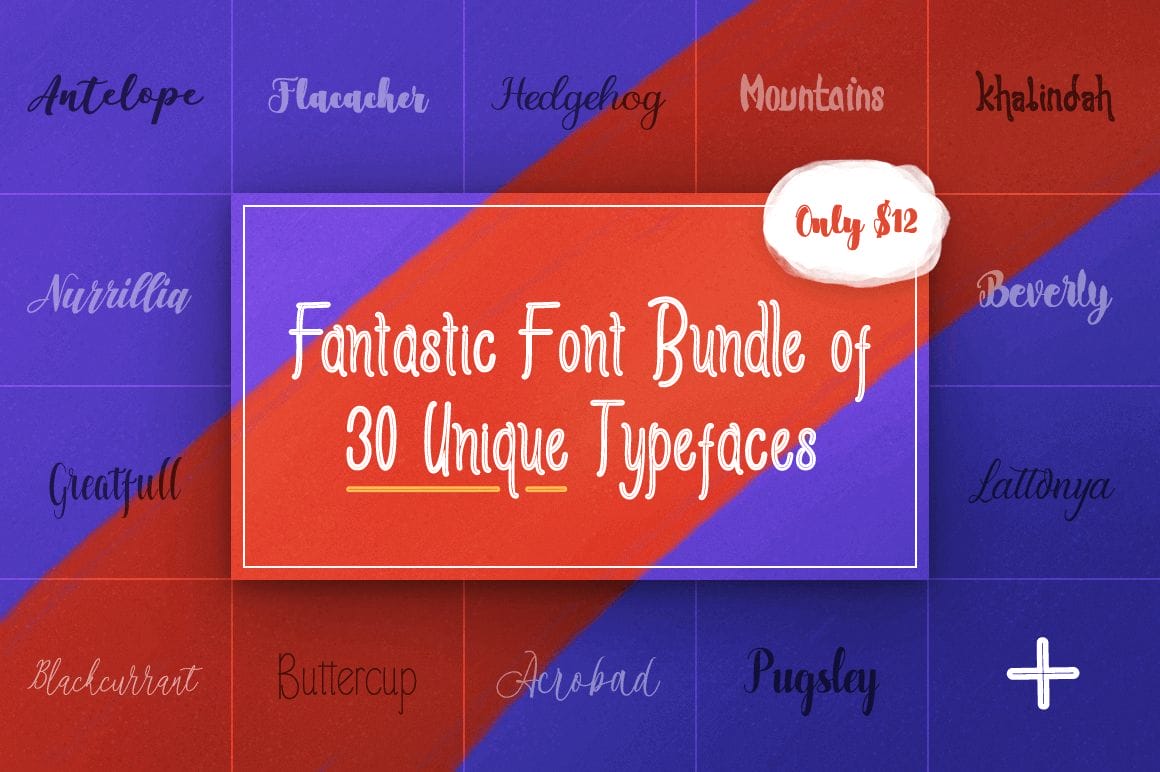
It’s time for another font-astic deal! This one from the mighty Polem, you’ll get yourself a collection of 30 unique hand-drawn, script and serif fonts. Gorgeous, elegant and flowing, these fonts are packed with oodles of OpenType features, and are just the thing you’re looking for in terms of your next project whether it’s greeting cards, invitations or even T-shirts.
- 30 unique professional fonts.
- Beautiful hand-drawn script fonts – from classic to modern.
- Perfect for variety of online and printed projects – T-shirts, wedding invitations, logos, quotes, signs, posters.
- Loads of OpenType Features – swashes, Standard Ligatures, StylisticAlternates, Initial and Terminals Forms, standard ligatures.